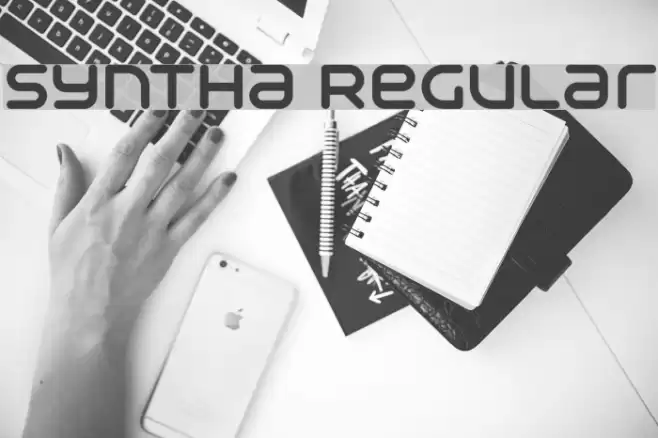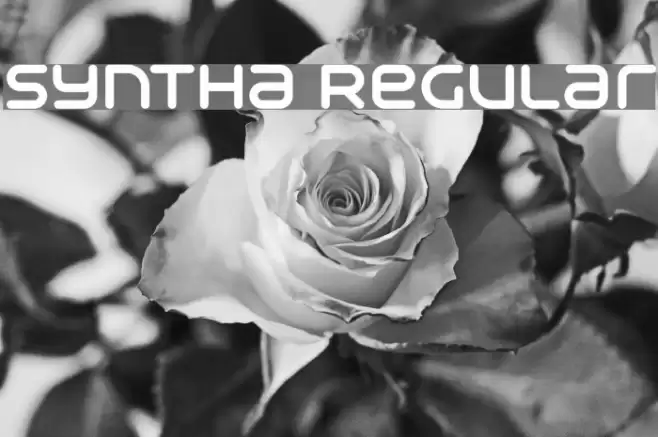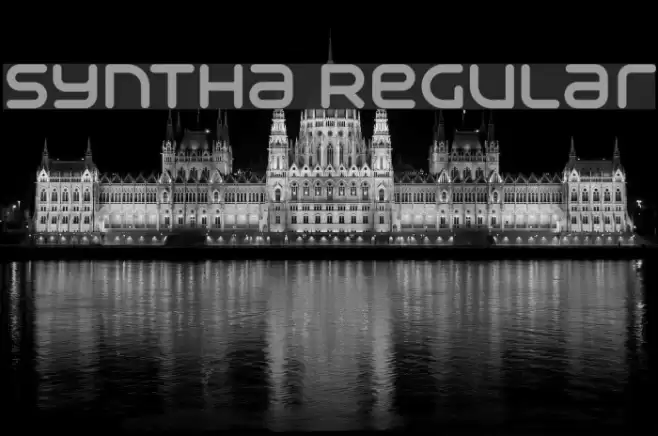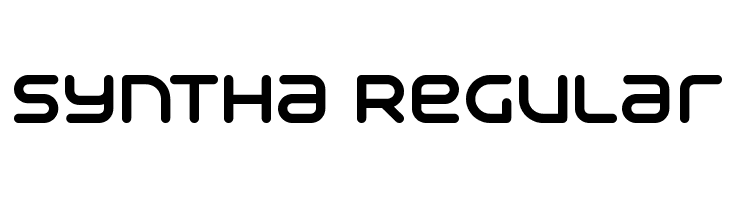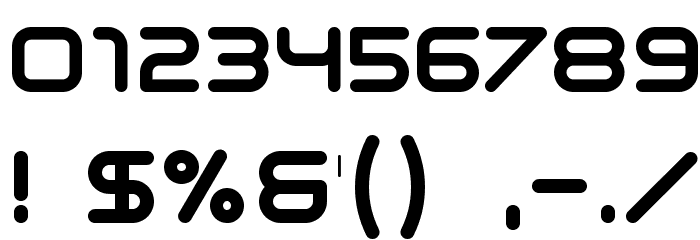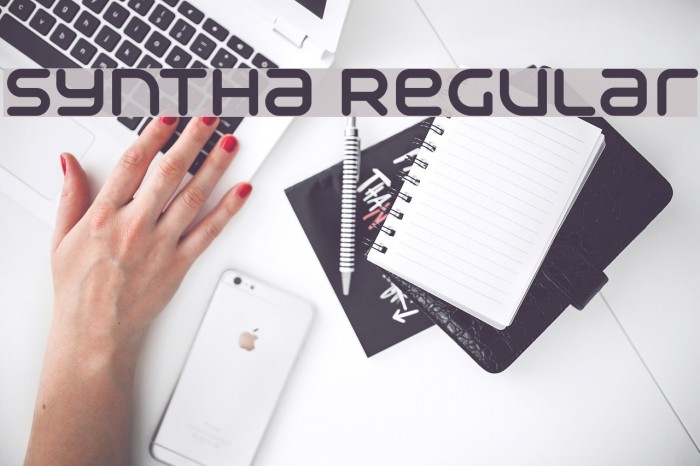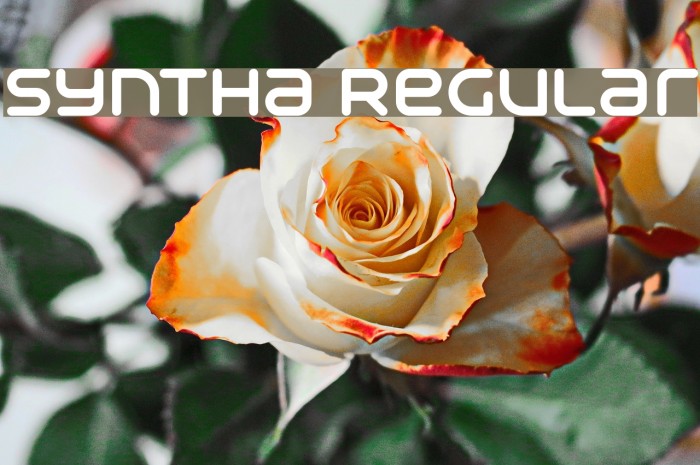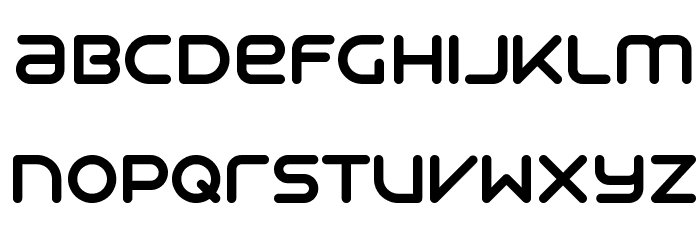
Syntha Regular Font
Syntha Regular Description
This font features a sleek, futuristic design with rounded edges and a geometric structure. The characters are uniform in width, giving it a monospaced appearance, though it is not strictly monospaced. The uppercase and lowercase letters maintain a consistent style, with a modern aesthetic that is both clean and minimalistic. The numbers and special characters follow the same design principles, ensuring a cohesive look across all glyphs. The font's smooth curves and lack of sharp angles contribute to its contemporary feel, making it suitable for digital and print media.
A modern, rounded font with a futuristic and geometric design from Uncategorized fonts.
- Proposed Projects: Ideal for technology branding, digital interfaces, and modern advertising campaigns.
- Use Case: Headlines, Logos, Digital interfaces